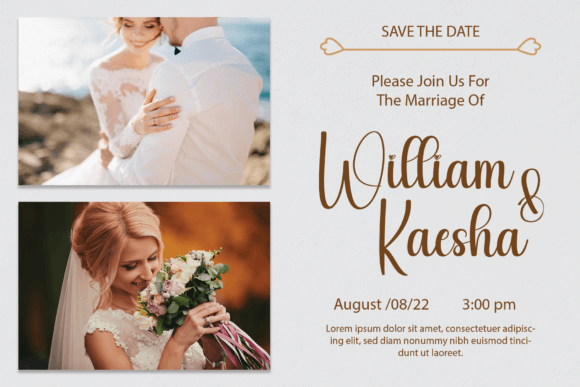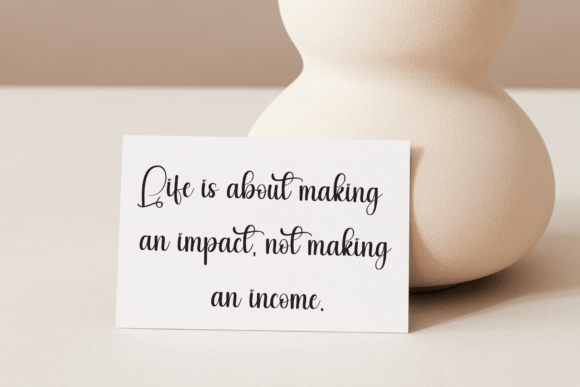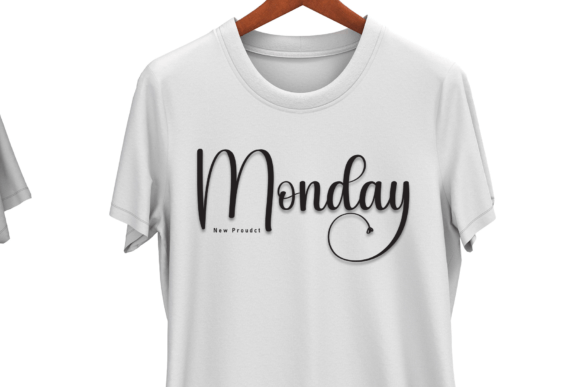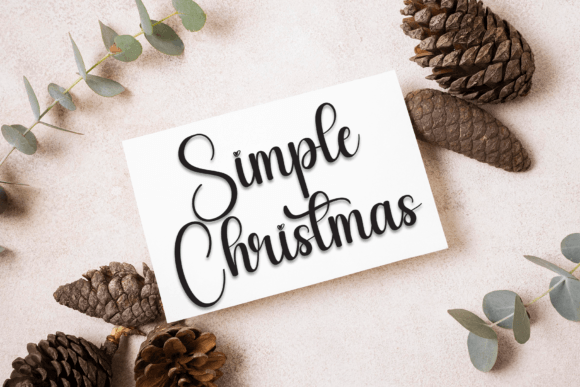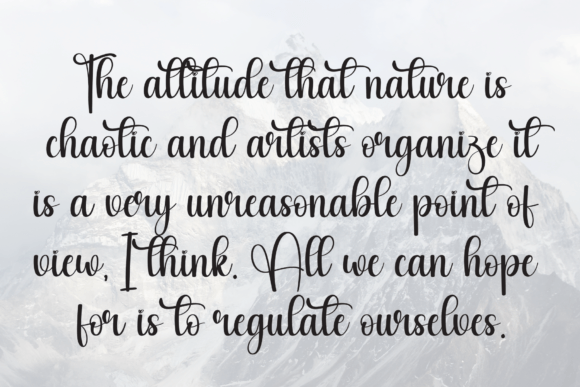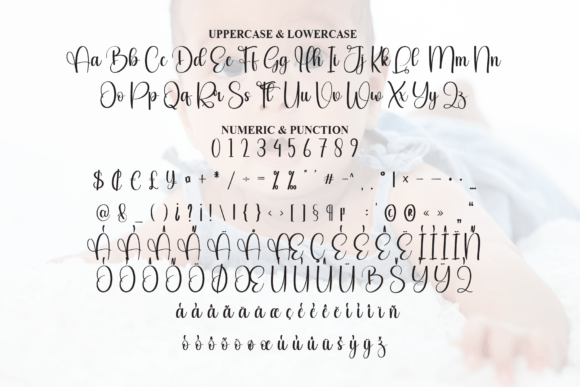
Creating a Personal Touch with Fonts
Have you ever been working on a design project, and suddenly, the perfect font pops into your mind? For designers, it’s a moment of pure creativity and joy. That’s exactly what happened to many designers when they discovered the Babytime Font. Its charming handwritten style and playful vibe make it an instant favorite for adding a personal touch to invitations, cards, and playful designs.
The Babytime Font is more than just a pretty face; it’s a valuable tool for designers looking to add a touch of warmth and personality to their projects. With its gentle curves and casual look, this font is perfect for creating a sense of approachability and friendliness. Whether you’re designing a children’s party invitation or a birthday card, the Babytime Font is sure to bring a smile to your face and a personal touch to your designs.
Babytime Font Key Features
- Font Family: Babytime Font is a unique, hand-drawn font designed specifically for children’s products and educational materials.
- Character Set: Includes a wide range of characters, including uppercase and lowercase letters, numbers, punctuation marks, and special characters.
- Unique Characteristics: Features a playful, cursive style with rounded edges and a soft, child-friendly appearance, making it perfect for use in children’s products, educational materials, and nursery decorations.
Babytime Font Review
I recently had the chance to work with the Babytime Font, and I must say it’s a unique and interesting choice for a nursery or children’s-themed project. Here are my thoughts on what works well and what doesn’t:
- Playful and whimsical feel: The Babytime Font has a lovely, hand-drawn quality that’s perfect for creating a playful and whimsical atmosphere in a nursery or children’s room.
- Clear and legible: Despite its cursive nature, the font is surprisingly easy to read, making it a great choice for text-heavy projects.
- Wide range of languages: The font supports a wide range of languages, making it a versatile choice for international projects.
- Limited expressiveness: While the font has a unique feel, it can feel a bit one-dimensional and lacks expressiveness, especially when used for large blocks of text.
- Not ideal for serious or formal projects: The font’s playful nature makes it less suitable for serious or formal projects, such as business reports or academic papers.
Overall, I think the Babytime Font is a great choice for nursery or children’s-themed projects, but may not be the best fit for more serious or formal projects. With its playful and whimsical feel, it’s sure to add a touch of fun and personality to any project.
Tips for Getting the Most Out of Babytime Font
Use Babytime Font for creating baby-themed designs, such as baby shower invitations, nursery decor, and baby announcements.
Experiment with different font sizes and colors to create visually appealing designs.
Combine Babytime Font with other fonts and graphics to create unique and creative designs.